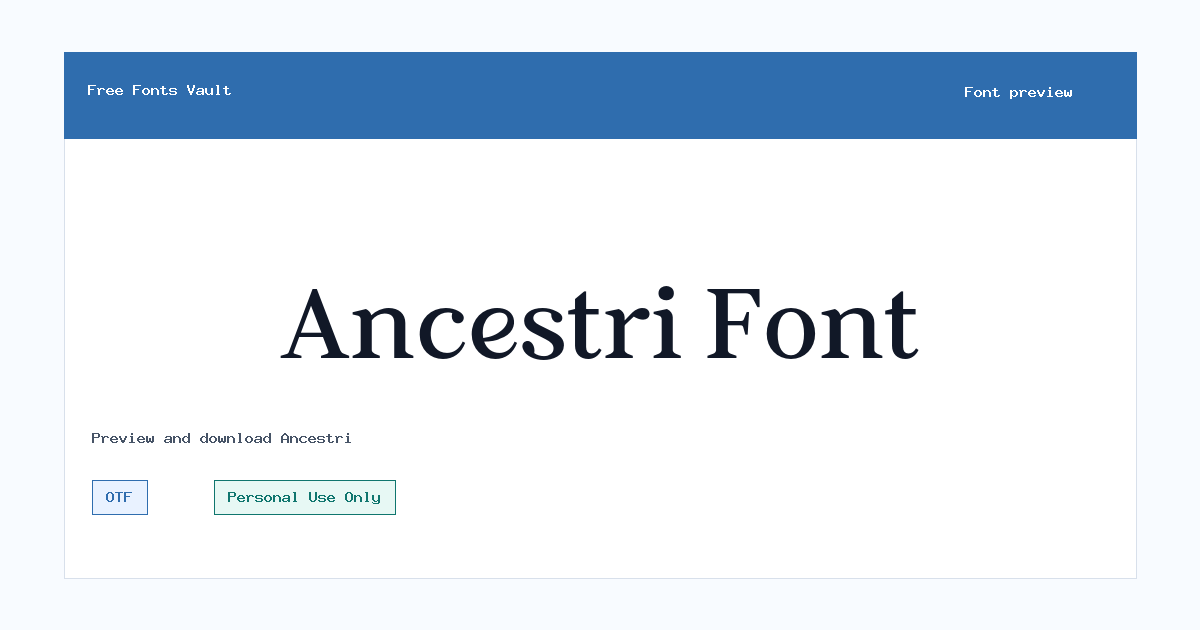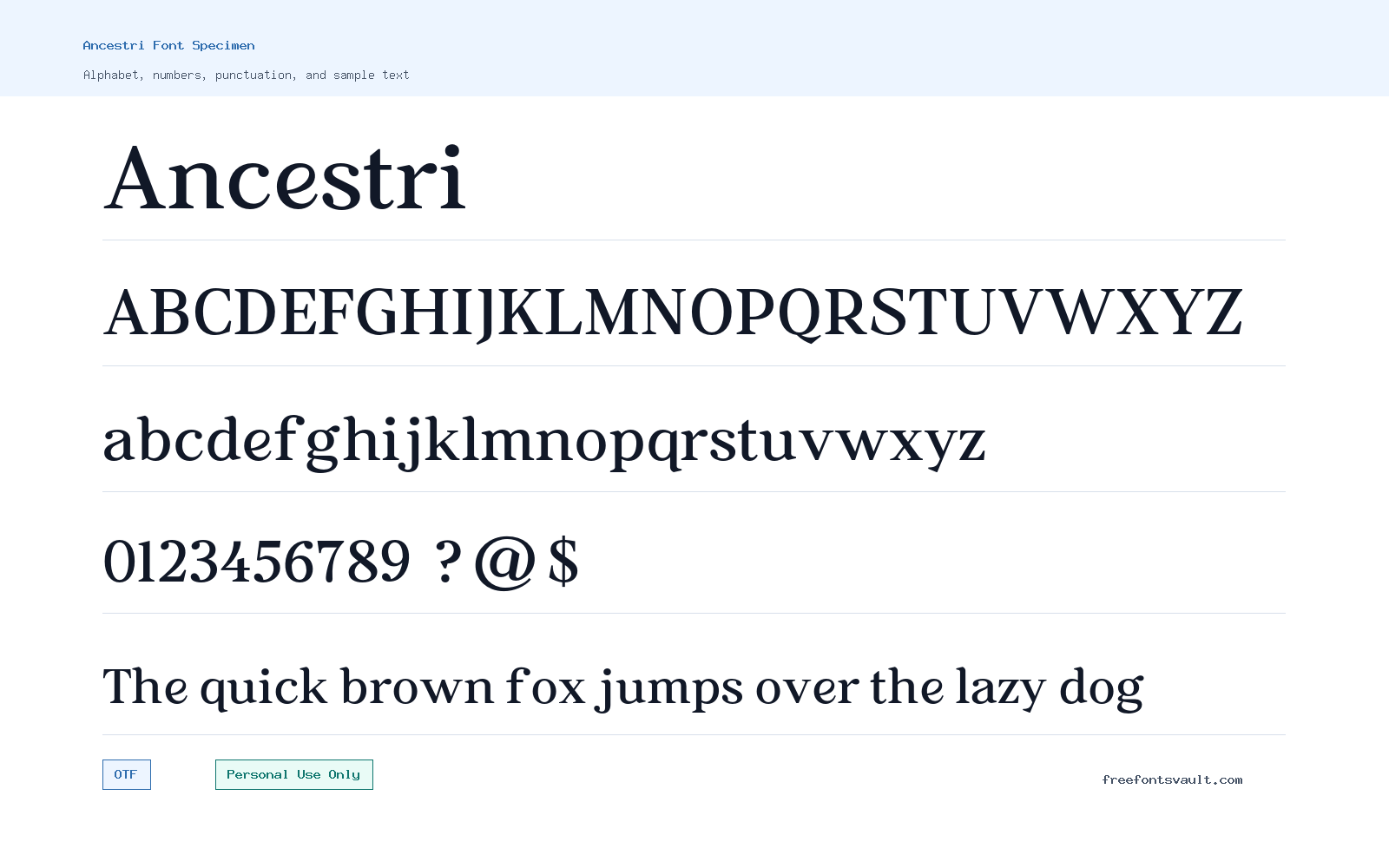
Ancestri
- Designer Akhmad Hidayat
Ancestri font.
Ancestri is a serif font with a regular OTF file for visitors who want to test elegant lettering in the preview tool before downloading. It is best approached as a personal-use display font, especially for short text where the letter shapes can stand out.
Ancestri comes as a regular style with normal weight, making it simple to test in headlines, names, quotes, invitations, and other short design lines. The font name and license information identify it as a serif font, so it is a good choice to try when you want a more classic text feel than a plain sans serif. Use the preview box to check how its capitals, lowercase letters, spacing, and punctuation behave with your own words.
Because only one regular OTF file is listed, plan your layout around a single style rather than expecting a full family with bold, italic, or multiple weights. If you need emphasis, try pairing Ancestri with a clean sans serif for body copy instead of forcing long paragraphs into the same font. Test it at the exact size you plan to use, because decorative or high-character serif fonts can look very different in small captions than they do in a large title.
- Serif styling, useful when a project needs a more formal or crafted look than a basic sans serif.
- Single normal-weight style, which keeps selection simple but means bold and italic alternatives are not part of this download.
- Personal invitations, name cards, quotes, and greeting designs where short lines are the focus.
- Logo drafts, mood boards, social graphics, and title concepts for non-commercial testing.
- Pairing with a readable sans serif in layouts that need a display heading plus clearer supporting text.
Ancestri is credited to Akhmad Hidayat. No foundry name is listed, so keep attribution focused on the designer credit shown for the font.
What should I use Ancestri for?
Try it for personal headings, invitations, names, quotes, and display text. For long paragraphs, preview your text first and consider pairing it with a simpler font.